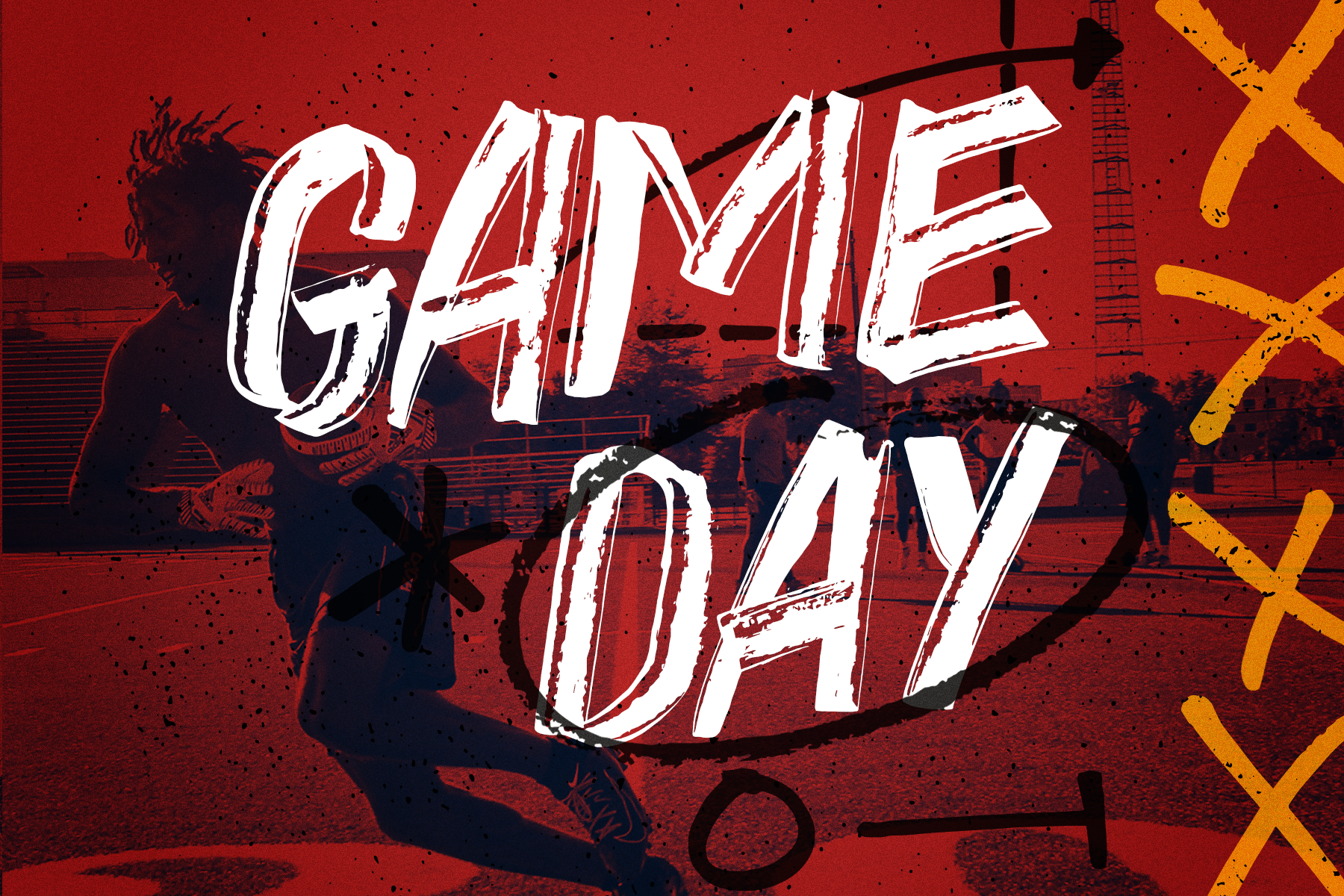
Game Day - Hand Drawn Font + Extras
Game Day is a sports themed hand drawn font.
Great for creating graphics for your favorite team to share on Instagram & social media.
Game Day is an all-caps font with alternate characters in the lowercase position, and comes with an additional italic version.
We’ve also included a big set of hand drawn themed graphics for drawing up plays just like the pros.